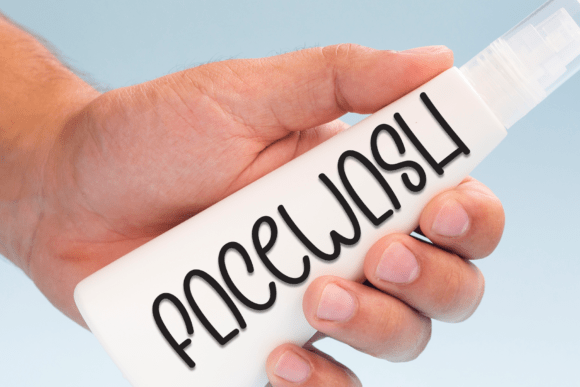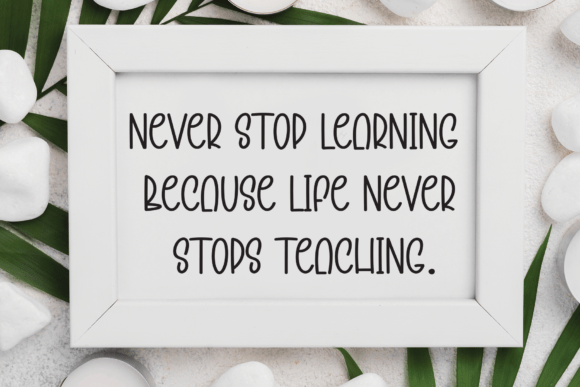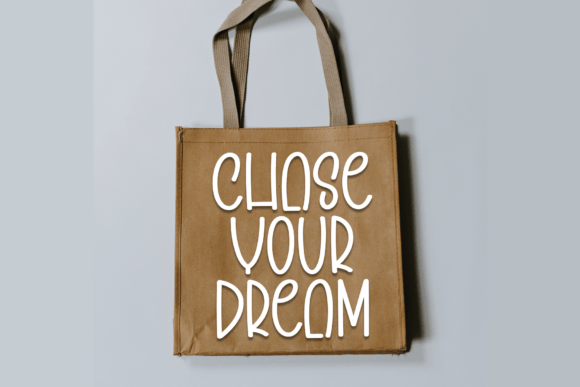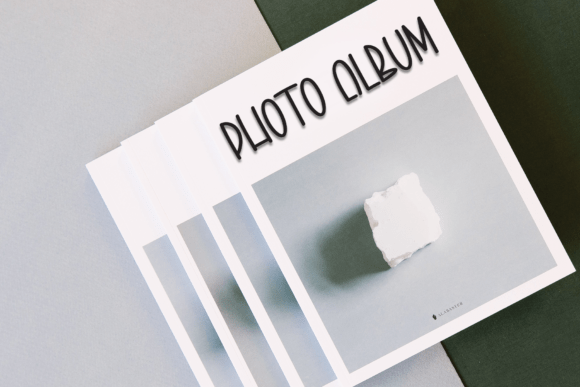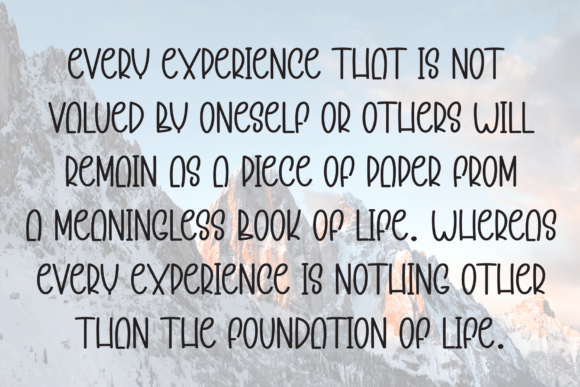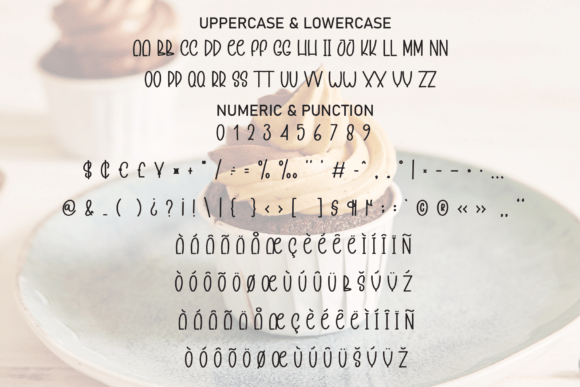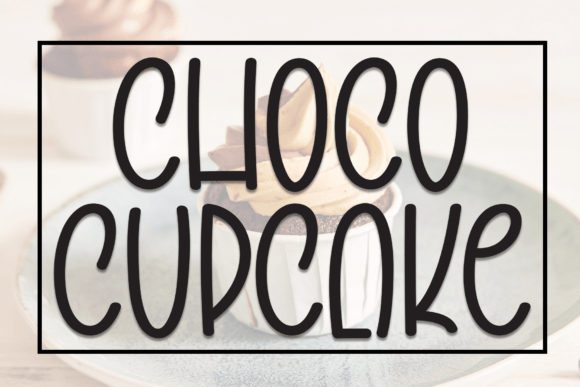
Introducing Choco Cupcake Font: The Perfect Handmade Display Font for Your Creative Projects
Are you looking for a font that adds a touch of warmth and personality to your designs? Look no further than Choco Cupcake Font, a charming handmade display font that captures the essence of handcrafted design. With its organic strokes and imperfectly perfect look, this font is perfect for designers and crafters who want to add a creative and authentic flair to their projects.
The Charm of Handmade Design
In a world where digital design dominates, handmade design offers a refreshing alternative. Handmade designs are unique, personal, and often imperfect – and that’s what makes them so charming. Choco Cupcake Font embodies this charm, with its irregular strokes, varying letter widths, and quirky character shapes. This font is not just a collection of letters and numbers; it’s a way to infuse your designs with a sense of personality and warmth.
Key Features of Choco Cupcake Font
• Organic strokes: Choco Cupcake Font features organic strokes that give it a handcrafted feel. Each letter and number has a unique, handmade quality that sets it apart from more traditional fonts.
• Imperfectly perfect look: This font celebrates the beauty of imperfection. Its irregularities and quirks make it look like it was drawn by hand, rather than typed on a computer.
• Handmade character: Choco Cupcake Font has a distinctly handmade character that makes it perfect for designs that need a personal touch.
• Versatile: This font is versatile and can be used for a wide range of projects, from greeting cards and packaging to DIY projects and logos.
Choco Cupcake Font is perfect for designers and crafters who want to add a creative and authentic flair to their projects. Here are some ideas for using this font:
• Greeting cards: Add a personal touch to your greeting cards with Choco Cupcake Font. Its handmade quality makes it perfect for special occasions like birthdays, weddings, and holidays.
• Packaging: Use Choco Cupcake Font to create unique and eye-catching packaging for your products. This font is sure to make your products stand out on store shelves.
• DIY projects: Choco Cupcake Font is perfect for DIY projects like scrapbooking, journaling, and craft tutorials. Its handmade quality fits right in with the DIY aesthetic.
• Logos: Use Choco Cupcake Font to create a logo that reflects your brand’s personality. This font is sure to make your brand stand out from the crowd.
Why Choose Choco Cupcake Font?
There are many fonts to choose from, but Choco Cupcake Font stands out from the rest. Here are some reasons why:
• Unique: Choco Cupcake Font is a unique and original font that will make your designs stand out.
• Handmade quality: This font has a distinctly handmade quality that sets it apart from more traditional fonts.
• Versatile: Choco Cupcake Font can be used for a wide range of projects, from greeting cards to logos.
Choco Cupcake Font is a charming handmade display font that brings a touch of warmth and personality to every project. With its organic strokes and imperfectly perfect look, this font captures the essence of handcrafted design. Perfect for greeting cards, packaging, DIY projects, logos, and anything that needs a creative and authentic flair, Choco Cupcake Font is sure to make your designs stand out. So why wait? Download Choco Cupcake Font today and start adding a personal touch to your designs!